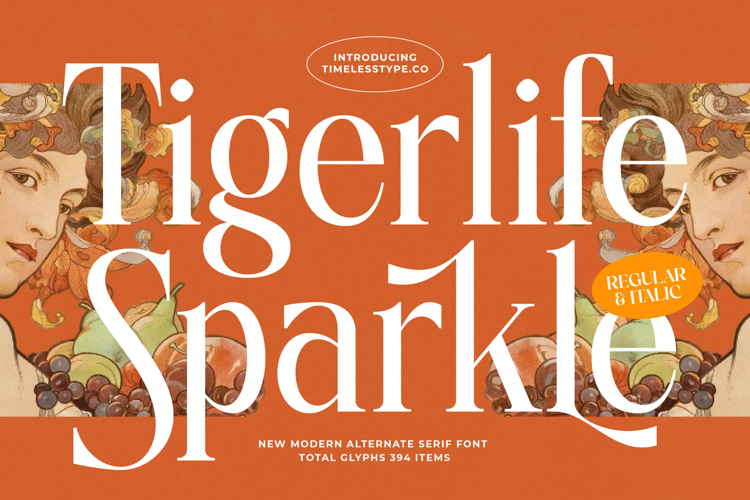
Tigerlife Sparkle - Modern Alternate Serif Font
Elevate your designs with a font that marries timeless elegance with a contemporary edge. Tigerlife Sparkle - Modern Alternate Serif Font introduces a new level of typographic sophistication, featuring graceful, high-contrast strokes and exquisitely balanced letterforms. Its distinctive personality and clear legibility ensure your message is not just read, but felt, instantly commanding attention and conveying an air of refined prestige.
Discover unmatched creative flexibility with Tigerlife Sparkle - Modern Alternate Serif Font. This versatile typeface boasts a rich set of stylistic alternates and is available in both Regular and Italic styles, empowering designers to craft truly unique and expressive visual narratives. Its captivating presence is perfect for projects that demand a blend of classic charm and modern aesthetic appeal, ensuring your work always leaves a lasting impression.